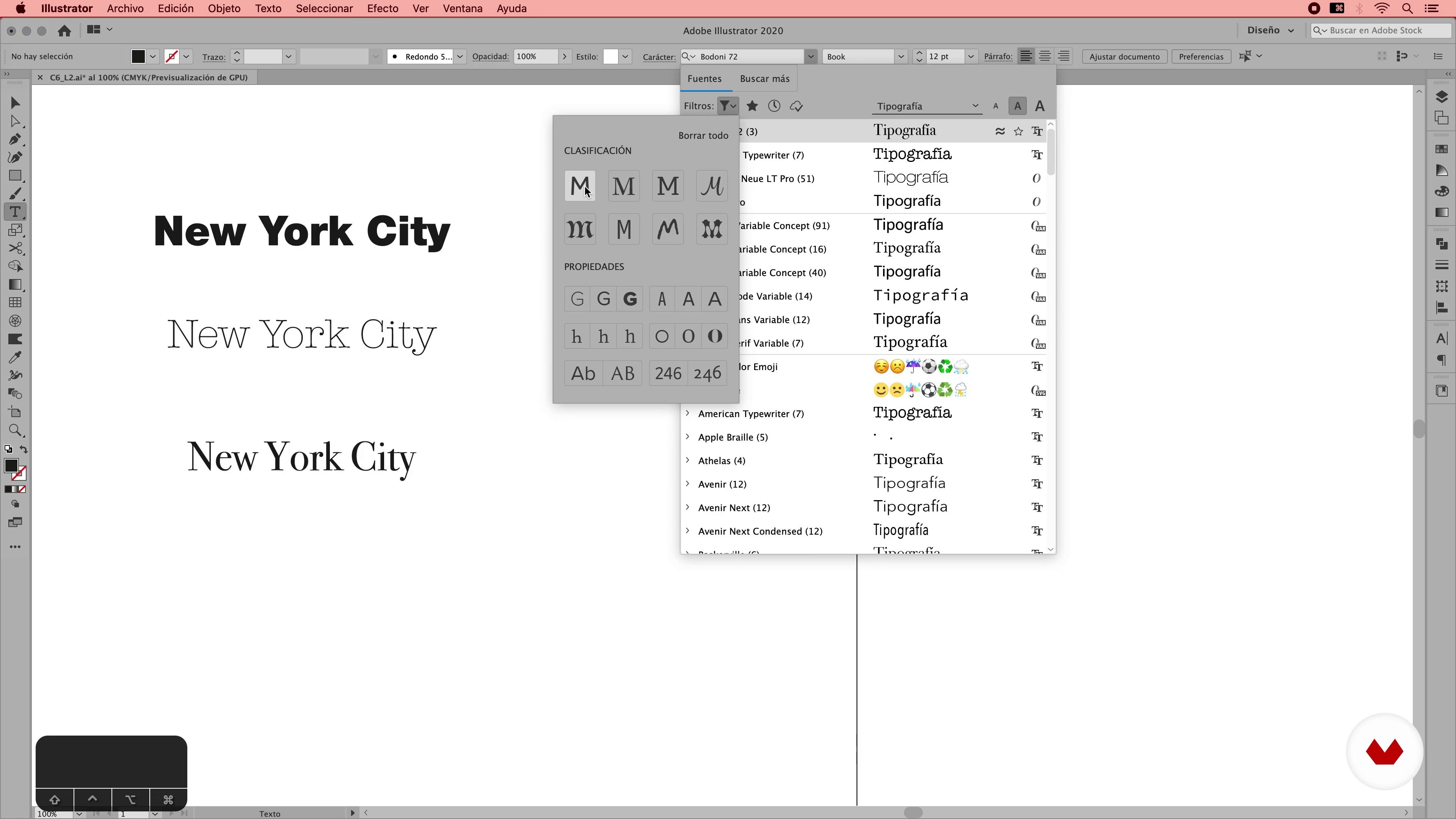
About the video: Choosing the Font
“Not all letters say the same. An "A" can be an "A", but depending on its details it can evoke one thing or another. That's why we use different fonts for different jobs. We will learn to choose fonts, we will understand the differences between style and family, and we will become familiar with the "Fonts" menu.”
“INTRODUCTION TO ADOBE ILLUSTRATOR FOR INFOGRAPHIC / COURSE 6 LESSON 2 Choosing a font Each letter says something different that's why we use different fonts for different jobs. In this unit we will learn to choose typography and we will work with the Fonts menu. Let's see. Let's now see how to work with our texts in more depth. We will see one of its main characteristics, which would be the proper form of the text. We write a text with the keyboard or we copy and paste it, and in Illustrator by default we are placed in a certain font. "Font" and "typography" are interchangeable words. In Il...”